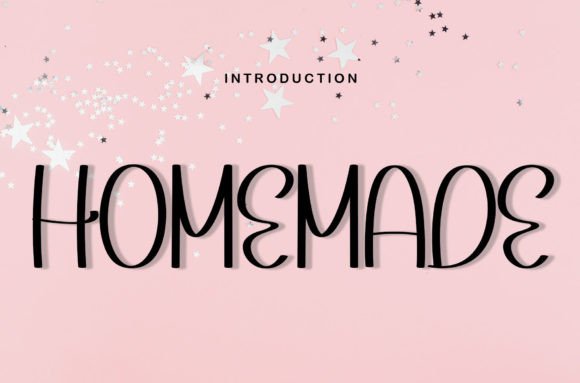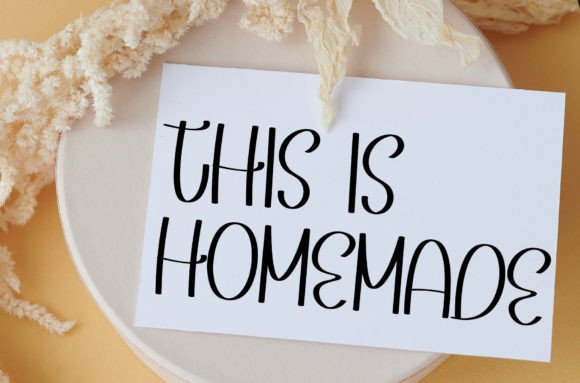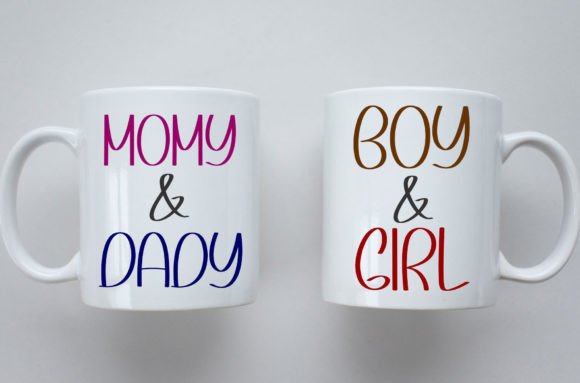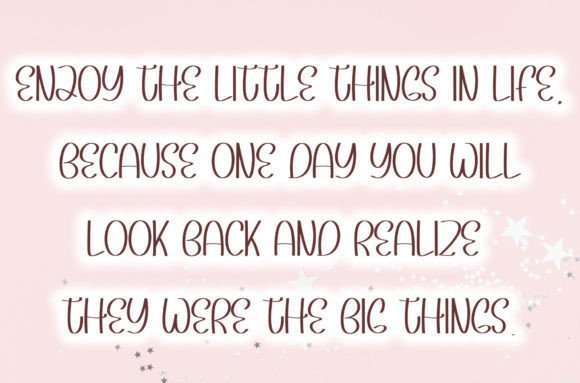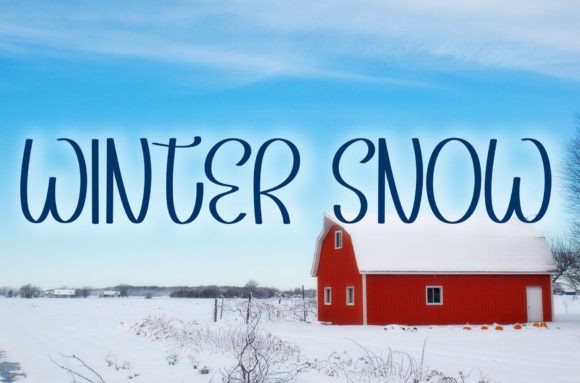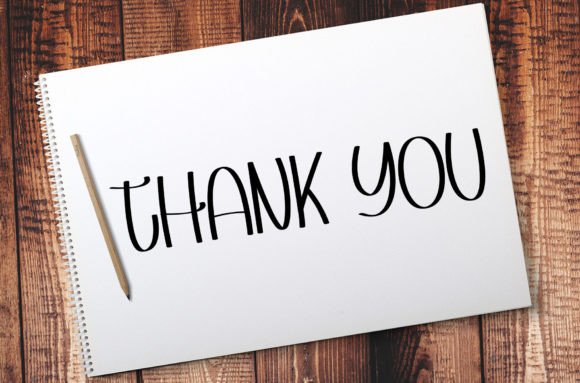
Homemade Font
About Homemade Font
Homemade Font is a neat and charming handwritten typeface that brings a friendly touch to your creative projects. Designed with care and clarity, this font is meant to beautify your work while leaving a warm and memorable impression on your audience.
It’s ideal for a wide variety of design needs. Whether you’re designing eye-catching posters, creative advertisements, elegant invitations, or engaging social media posts, HomemadeFont offers the right balance of simplicity and style.
Why Choose Homemade Font?
There are several reasons to consider HomemadeFont for your next project:
• Neat and clean appearance – Ensures readability across formats and sizes.
• Handcrafted charm – Adds a personal and authentic touch.
• Adaptable for multiple uses – From digital content to print media, it fits perfectly.
Moreover, it stands out thanks to its casual flow and balanced letterforms, which make your designs feel approachable and professional at the same time.
Best Uses for Homemade Font
You can use HomemadeFont in many creative situations, including:
• Event invitations and greeting cards
• Posters for seasonal campaigns or promotions
• Ads and product displays
• Social media content and digital banners
• Personal branding or small business logos
Because of its friendly tone, it works well for both personal and commercial designs. Its handwritten quality adds life to your text while keeping the message clear.